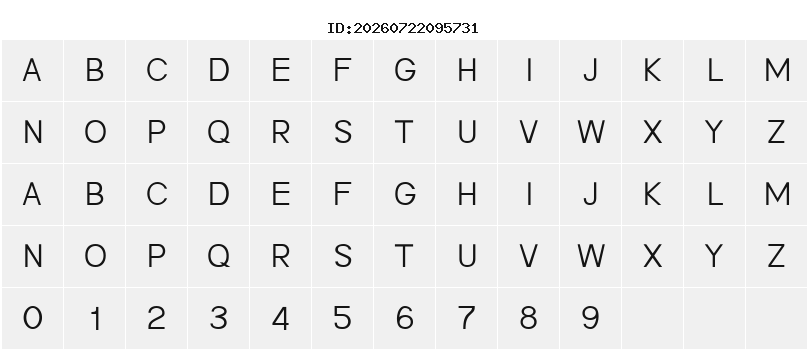
• Font Name: Heo May Hoa 1.1
• Full Font Name: Heo May Hoa 1.1
About Heo May Hoa 1.1.ttf
Heo May Hoa 1.1.ttf is a modern, elegant sans-serif font designed for ultimate readability and visual harmony. Perfect for branding, headlines, web design, and print materials.